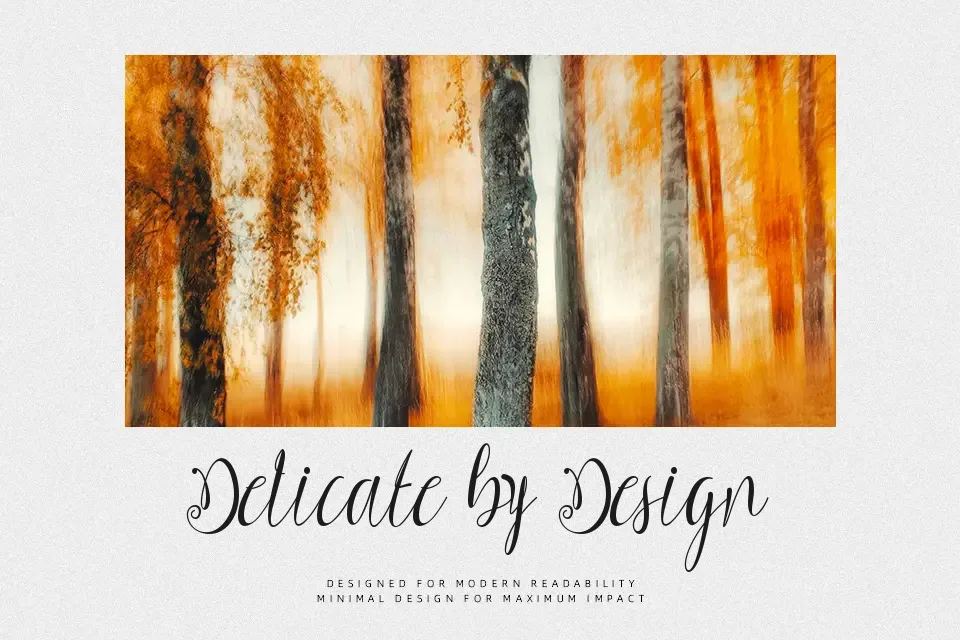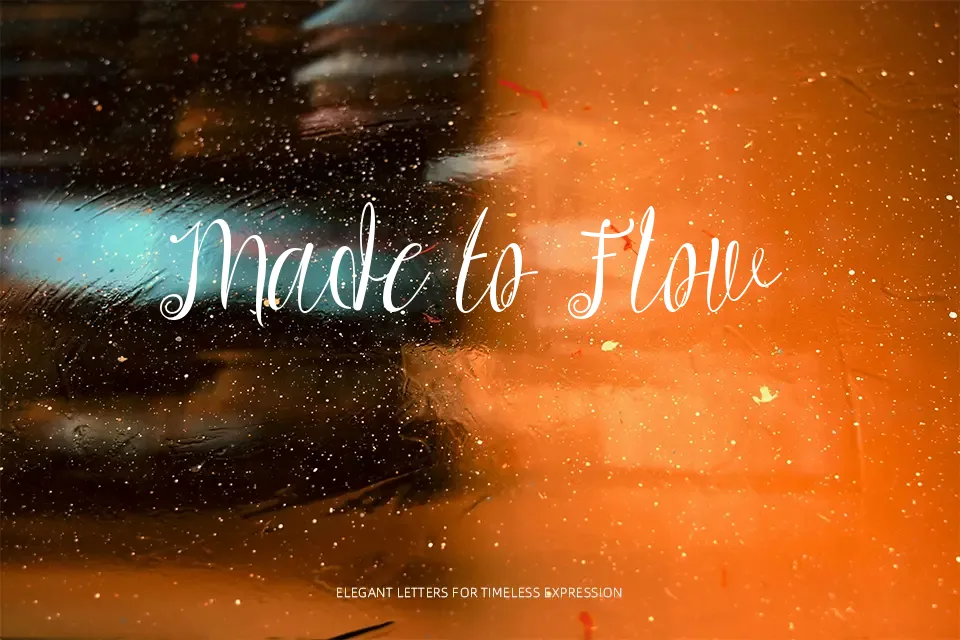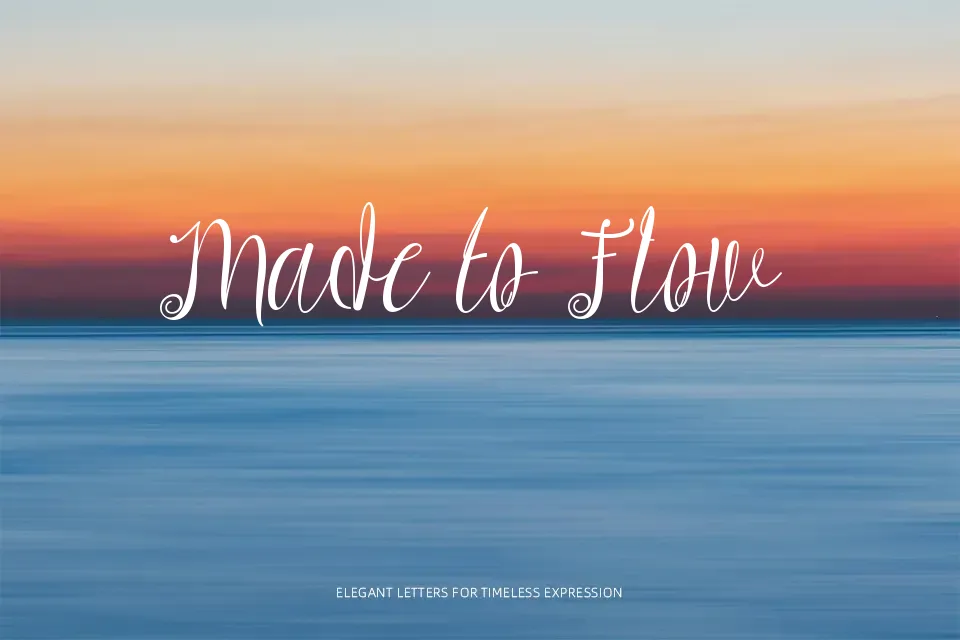
Charllona Font
Charllona Font is a calligraphic display typeface featuring fluid cursive strokes with prominent ascender swirls and coiled descender tails. The letterforms display moderate stroke contrast, paired with loose character spacing that gives each glyph room to showcase its ornate terminal details. Generous x-height proportions keep individual characters distinct in short phrases, making the design well suited for event invitations, artisanal product packaging, and editorial mastheads. However, the intricate loops and decorative flourishes reduce reading comfort across extended body paragraphs and small digital captions. The typeface delivers its strongest visual clarity when applied to isolated titles at medium to large scale.
Best For: wedding invitation headlines, boutique packaging labels, romantic greeting cards, event signage
Not Ideal For: continuous body text, small mobile UI labels, dense editorial paragraphs, technical documents
Perfect for branding, headline, and invitation, with a creative and calligraphy style.